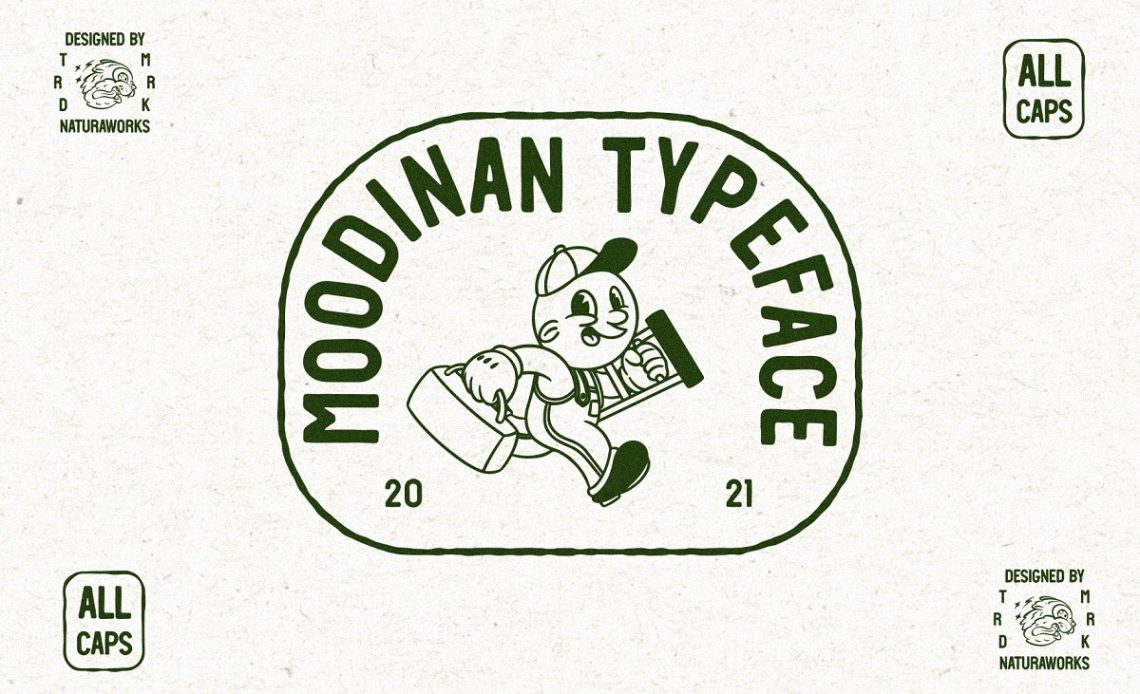
Discover the MOODINAN TYPEFACE - a remarkable font that is designed to bring your creative ideas to life. Inspired by American vintage fonts, this font family offers a unique combination of simplicity and elegance that is sure to impress. Created by Wisnukoro Anggriawan, this font is the perfect choice for anyone looking for a Font For Typewriter.
With MOODINAN TYPEFACE, you can easily create label design, logo design, badge design, t-shirt design, posters, greeting cards, letterheads, or anything that requires a vintage and hand-drawn vibe. The font is incredibly versatile and easy to use, making it perfect for both professionals and beginners.
But that's not all - when you download MOODINAN TYPEFACE, you'll also receive some random illustrations and editable badge designs. These additional assets will provide you with even more inspiration and allow you to create truly unique designs that stand out from the crowd.
Whether you're a designer, entrepreneur, or hobbyist, MOODINAN TYPEFACE is the perfect choice for your next project. With its vintage charm and incredible flexibility, this font is sure to elevate your designs and help you stand out in a crowded marketplace. So why wait? Download MOODINAN TYPEFACE today and start bringing your creative visions to life.